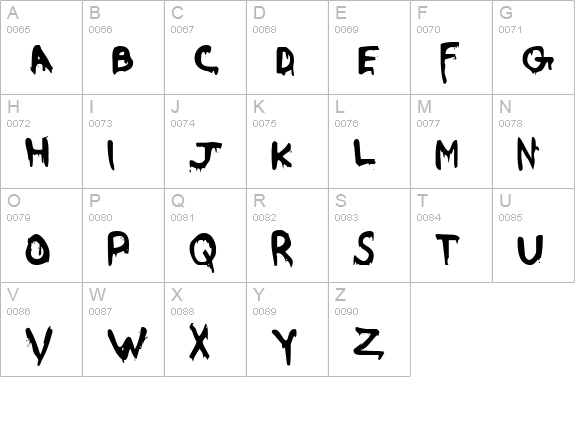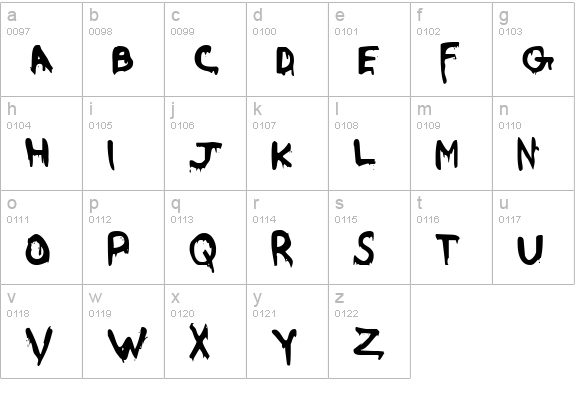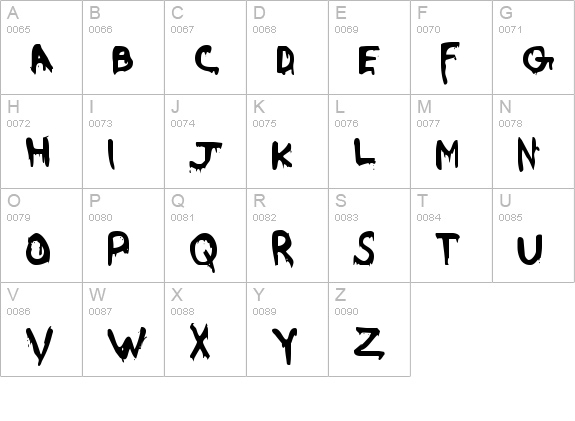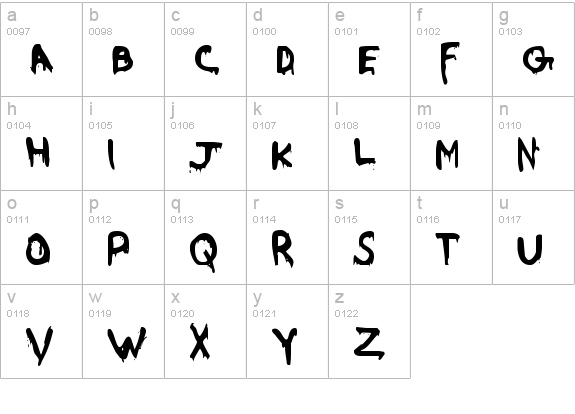
Introducing the captivating Were-Beast font, a striking display typeface that exudes a mystical and otherworldly charm. With its intricate design and bold aesthetic, this font is perfect for adding a touch of mystery and intrigue to your projects. The Were-Beast font features a unique blend of sharp edges and flowing curves, creating a visually dynamic appearance that is sure to make a statement. What sets the Were-Beast font apart is not only its captivating design, but also the fact that it is available for free download at FontsMarket.com. This means that you can easily add this stunning font to your collection without any cost, making it a valuable resource for designers, creatives, and enthusiasts alike. Whether you're working on a branding project, a poster design, or any other creative endeavor, the Were-Beast font is sure to elevate your work with its bold and distinctive look. Download this font for free today and unleash its powerful presence in your designs.